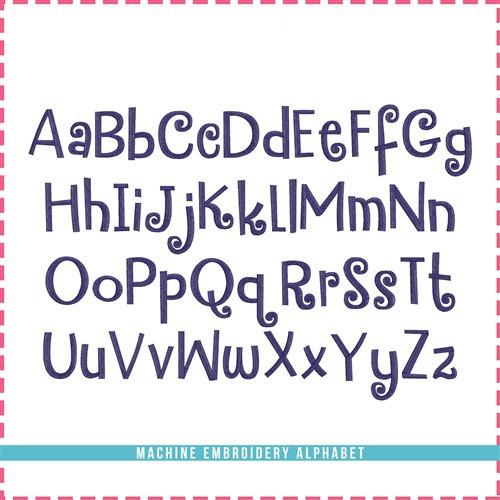
Maya Kreations is happy to present Funky Monkey Font machine embroidery font which has Funky decorative machine embroidery font with bold, rounded letters, ideal for vibrant designs on shirts and bags. Available in PES, DST, and 8 other formats. included. If you would like to view more embroidery fonts and alphabets please search our embroidery fonts page.